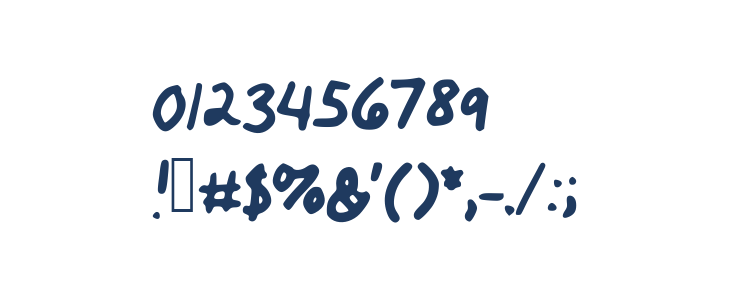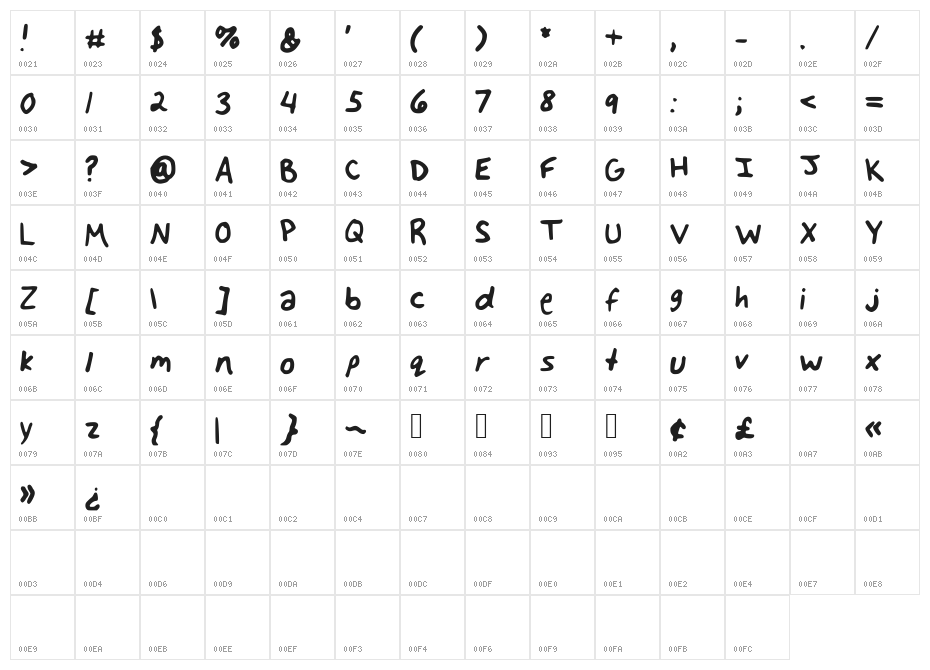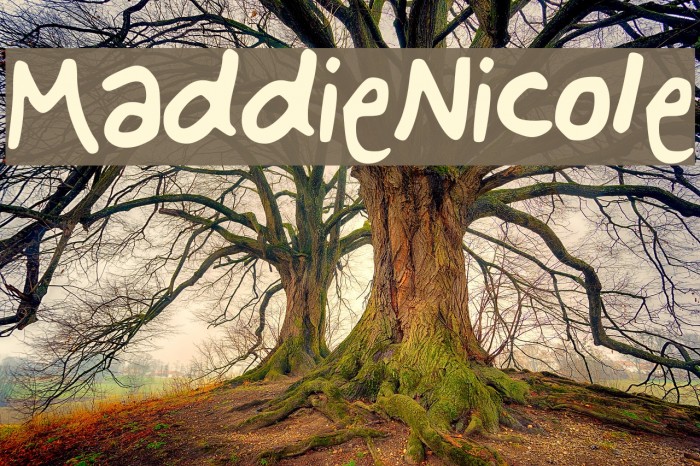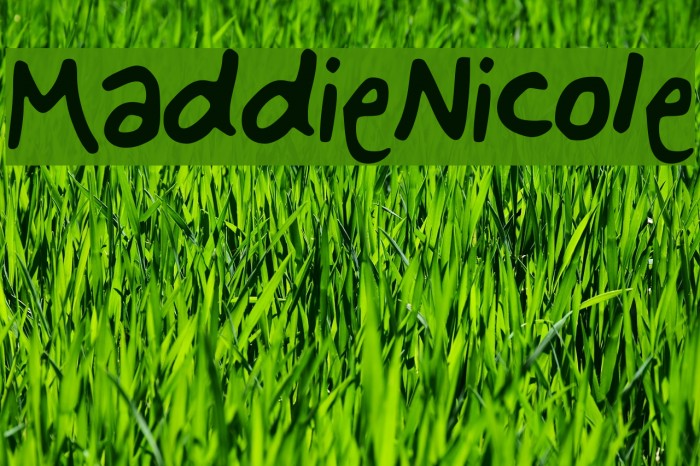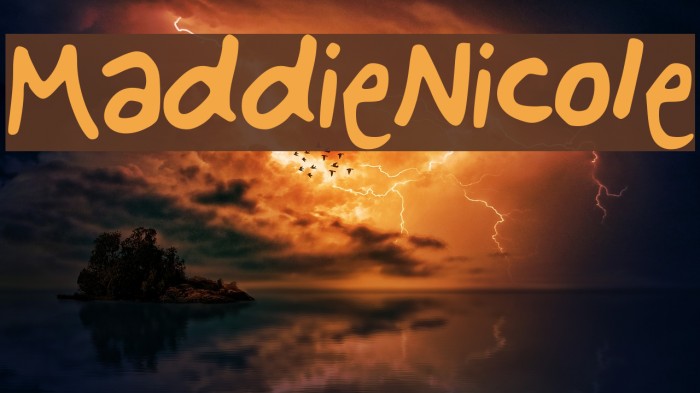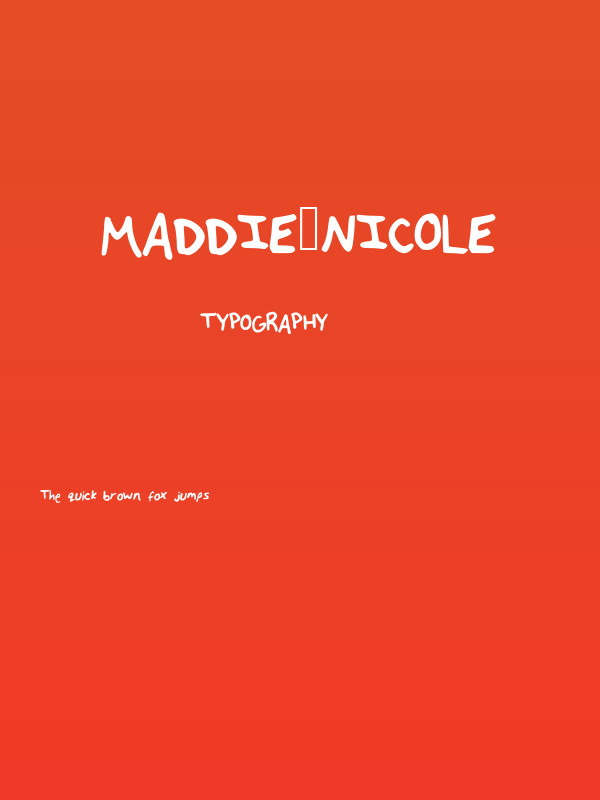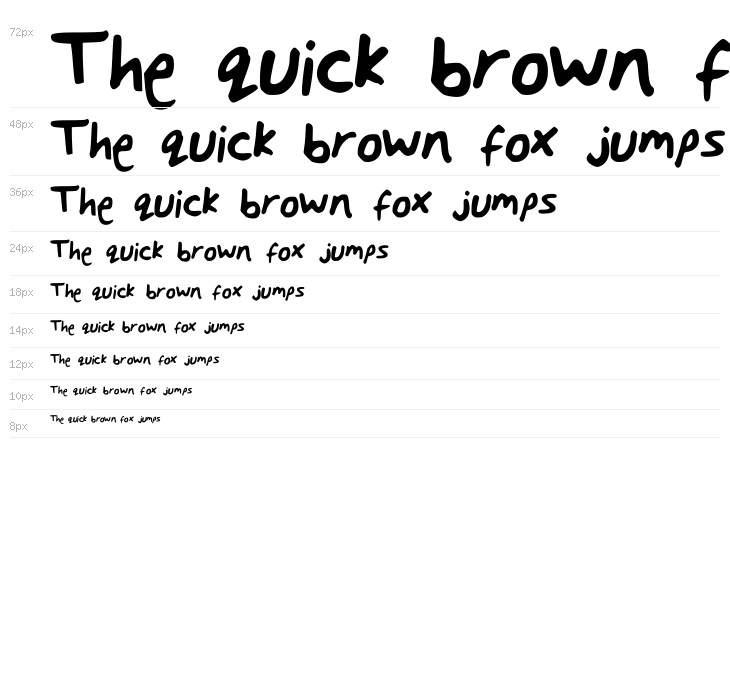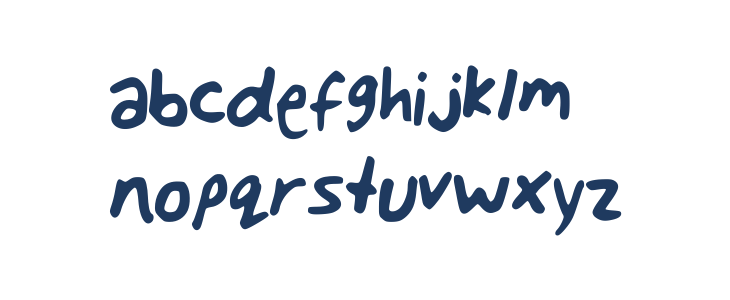
Maddie_Nicole Font
Maddie_Nicole Description
This font exhibits a playful and informal handwritten style, characterized by its bold and rounded letterforms. The uppercase and lowercase letters maintain a consistent flow, with slightly irregular shapes that add to its casual charm. The numbers and special characters follow the same style, ensuring a cohesive look across all elements. The strokes are thick and uniform, providing a strong presence on the page. This font is ideal for projects that require a friendly and approachable aesthetic, such as children's books, casual invitations, or creative branding.